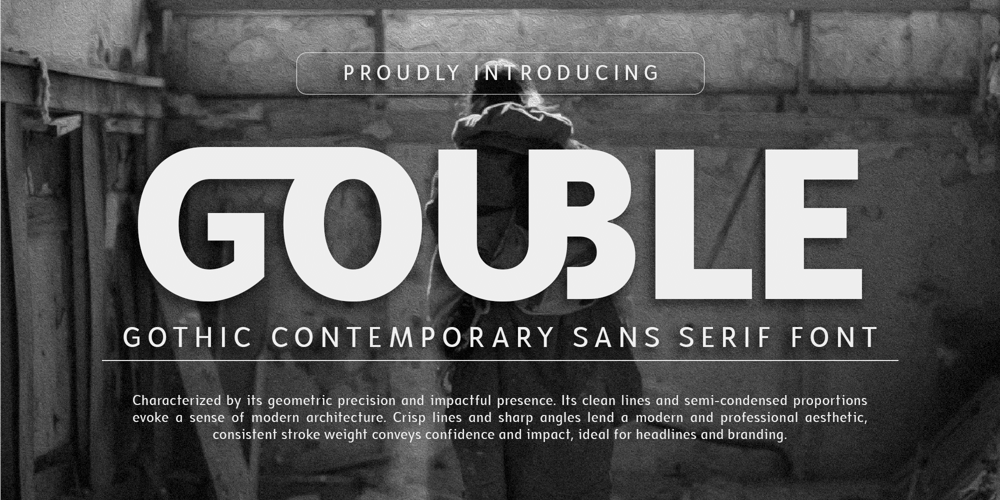
Gouble Font Family was designed by Dede Kurniawan and published by Creatifont Studio. Gouble contains 14 styles and family package options. Gouble – a contemporary gothic sans-serif typeface, characterized by its geometric precision and impactful presence. Its clean lines and remarkable proportions evoke a sense of modern architecture. Crisp lines and sharp angles lend a modern and professional aesthetic, and consistent stroke weight conveys confidence and impact, ideal for headlines and branding. Gouble comes with many of ligatures that showcase subtle design flourishes, adding personality and memorability. Its impactful presence and versatile nature make it a valuable asset for designers seeking a confident and contemporary voice for their projects.A SUMMARY OF WHAT’S INCLUDED: Standard Character A-Z, a-z, 0-9, Punctuation & symbols 7 Styles Font (Thin, ExtraLight, Light, Regular, Medium, SemiBold, Bold) Italic/Oblique Font for each weight styles Various set of Ligatures and Alternates Works on PC & Mac Simple installation Accessible in Adobe Creative Suite (Ai, Ps, Id, etc.) even work on Microsoft Word. PUA Encoded Characters – Fully accessible without additional design software. 🌟If you come across any issues or notice anything we might have overlooked while using this product, please feel free to reach out to us. We greatly value your feedback as it helps us enhance and refine our products. Thank you!